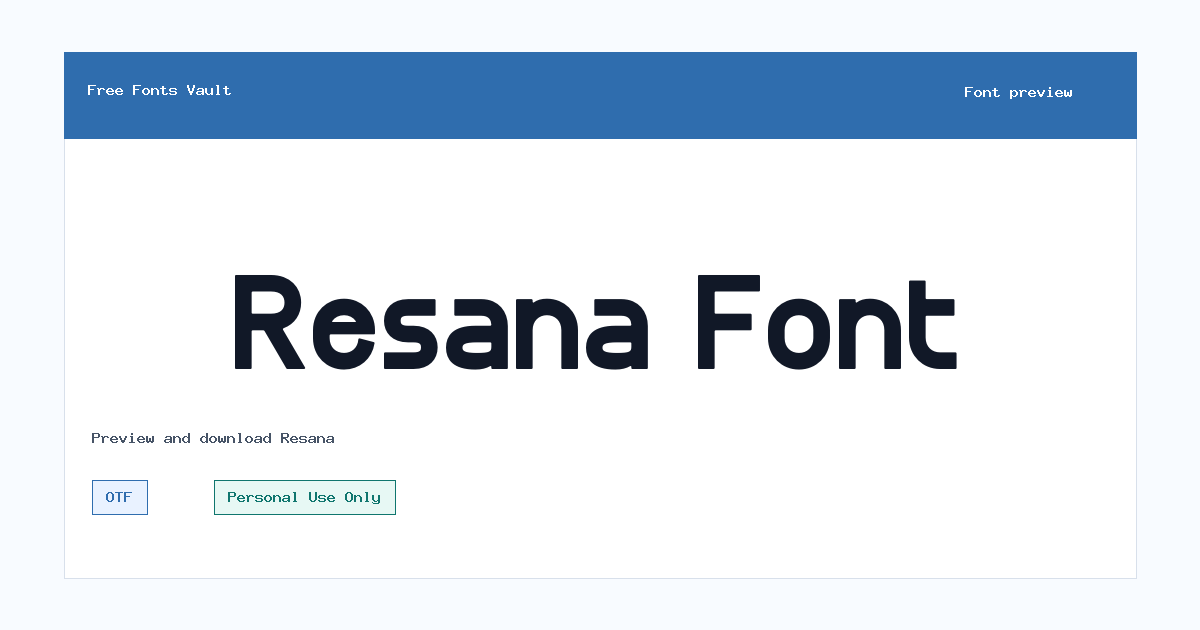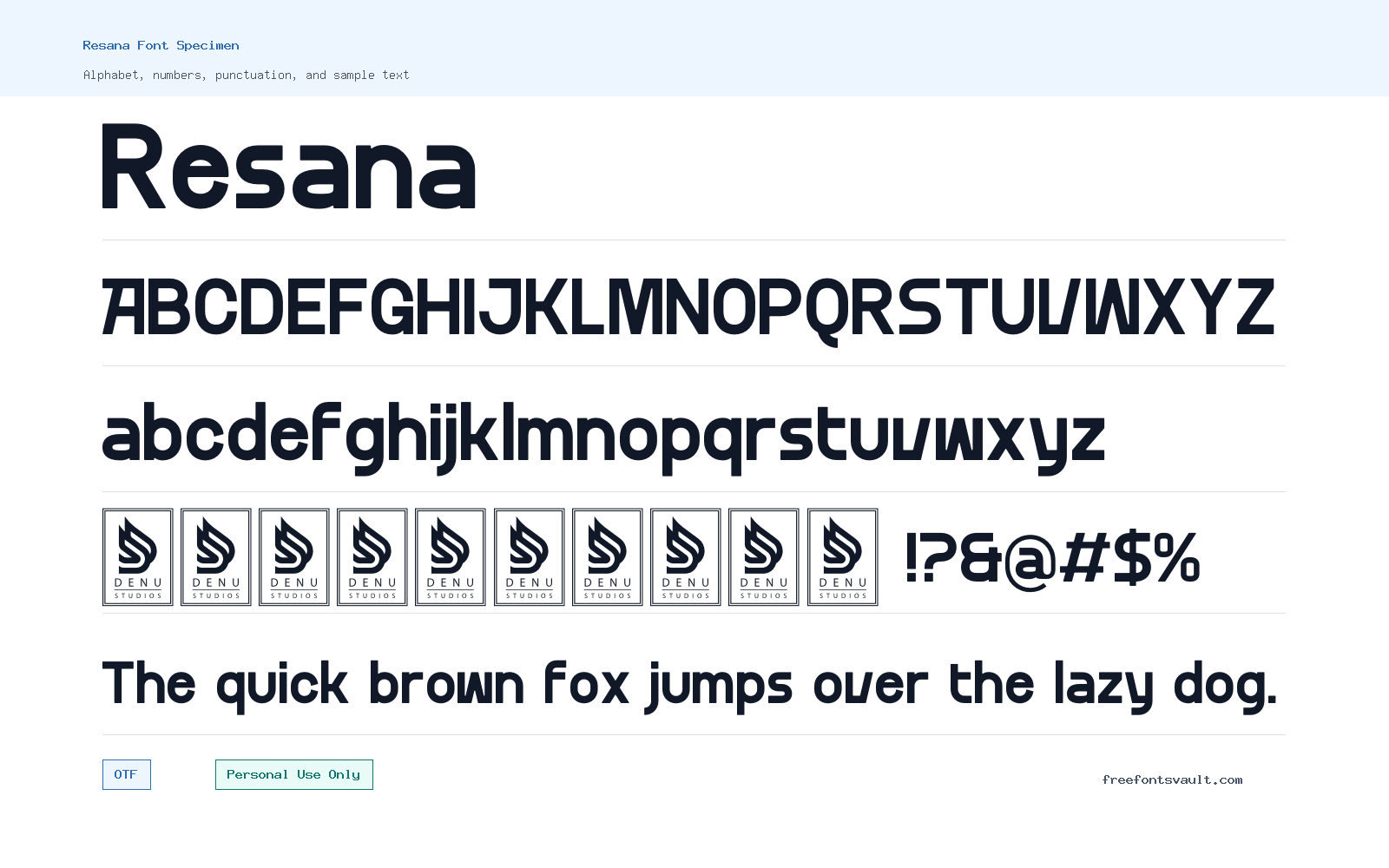
Resana
- Designer Dede Nugraha
Resana font.
Resana is a sans serif display font with a clean, modern feel, offered here as an OTF demo file for personal-use projects. It is a good font to test when you need simple letterforms that can carry short titles, names, labels, or visual branding drafts without adding too much decoration.
About Resana Font
Resana works best when treated as a display face rather than a long-reading text font. Its sans serif structure makes it easy to place in layouts for headings, poster lines, social graphics, mockups, and short identity-style text. Because the download is listed as a demo regular style, the safest way to judge it is to type your own words in the preview tool and check the letters you actually need. Pay close attention to spacing in uppercase words, short brand names, numbers, punctuation, and any repeated letters, since those details often matter more than a font’s first impression.
Use Resana for compact text where the font can be noticed without carrying too much reading load. It can suit personal posters, mood boards, quote cards, YouTube thumbnail drafts, invitations, school projects, and design experiments. For body copy, pair it with a quieter serif or neutral sans serif that is easier to read at smaller sizes. If you are building a layout, try Resana for the main title and keep subtitles, captions, and paragraphs in a simpler companion font. This keeps the design clear and helps the display lettering stand out without making the whole page feel crowded.
- Sans serif appearance that is easy to test in a browser preview before installing, with particular attention to spacing, punctuation, and readability at different sizes.
- Personal-use title designs, quote graphics, poster drafts, invitations, and social media artwork where a clean sans serif display style is useful.
- Logo concept sketches, branding mood boards, headings, and short layout experiments that do not require extended paragraph reading.
What kind of projects is Resana best for?
Resana is best suited to short text: headings, posters, quote cards, personal invitations, mock branding, and social graphics. It is less ideal for long paragraphs because display fonts usually work better when they have space and larger type sizes.
What should I pair Resana with?
Pair it with a simple, readable text font. A neutral sans serif can keep a layout modern, while a restrained serif can add contrast. Use Resana for the main words and let the companion font handle smaller supporting text.